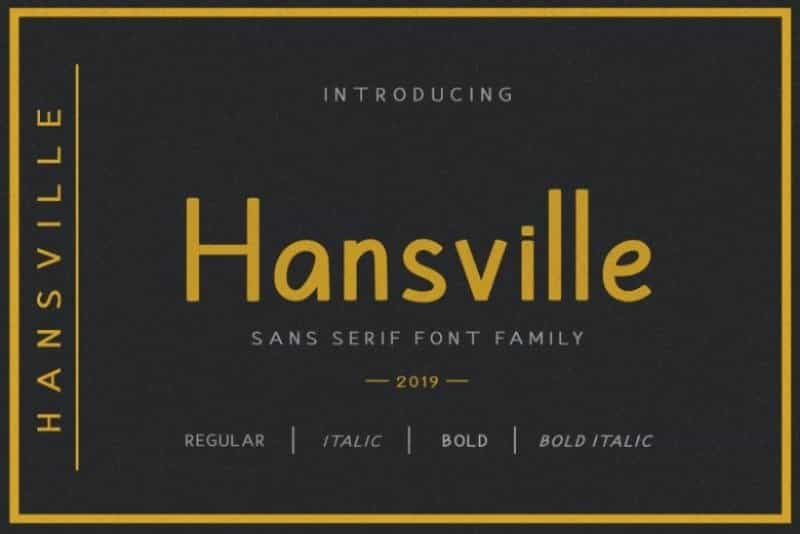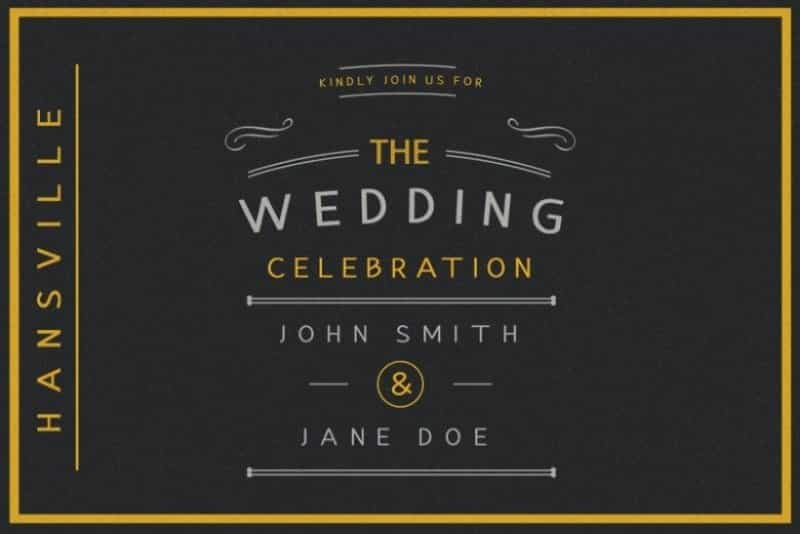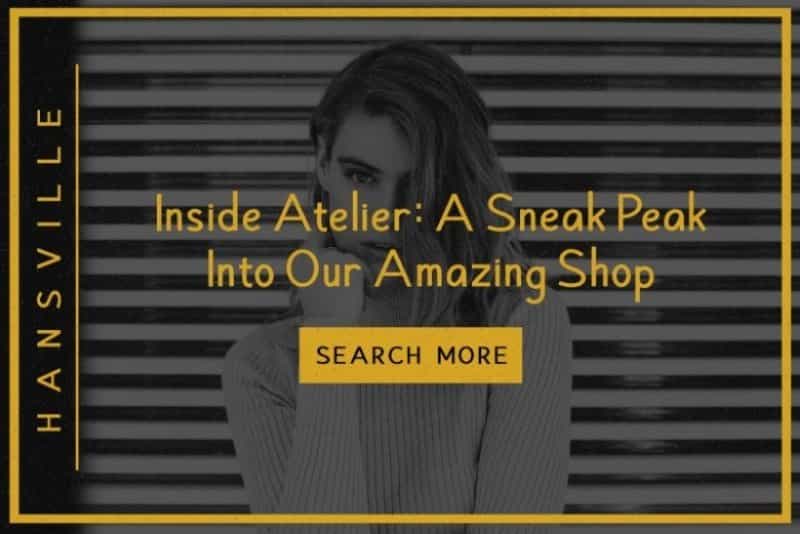
Hansville Sans Font Family
Hansville elevates the essence of a school typeface, to new heights. While the uppercase letters draw inspiration from lettering styles the lowercase letters offer a perspective. These fonts are versatile. Can be used for branding purposes, like logos, banners, packaging and more.